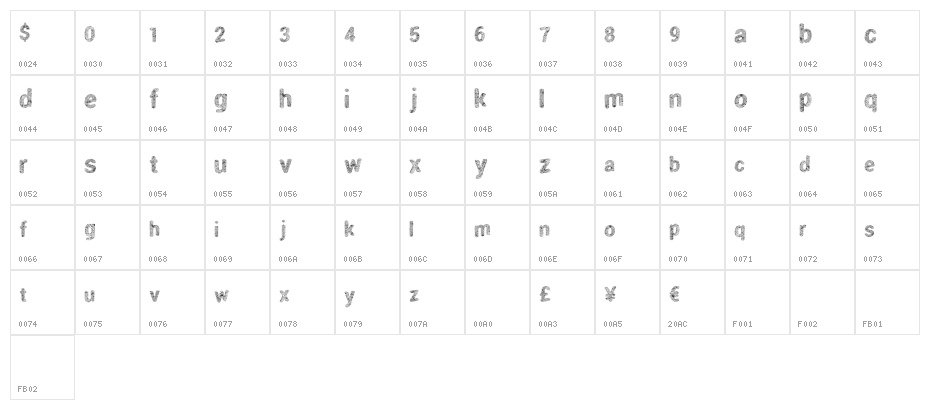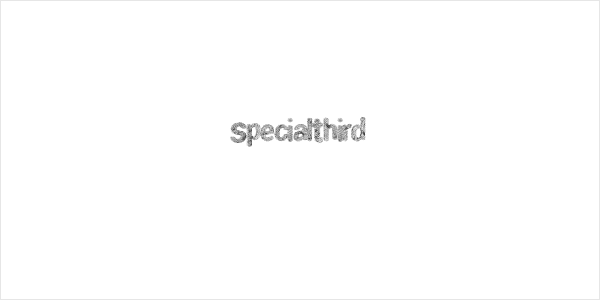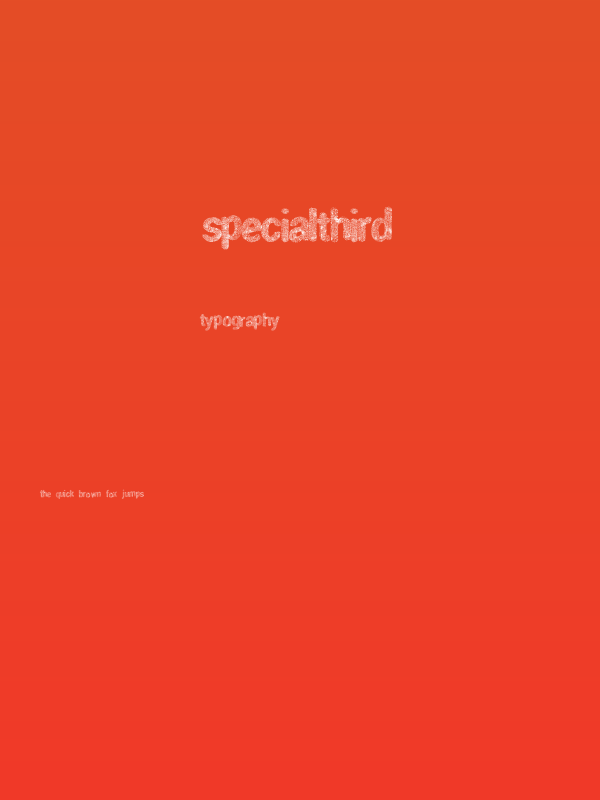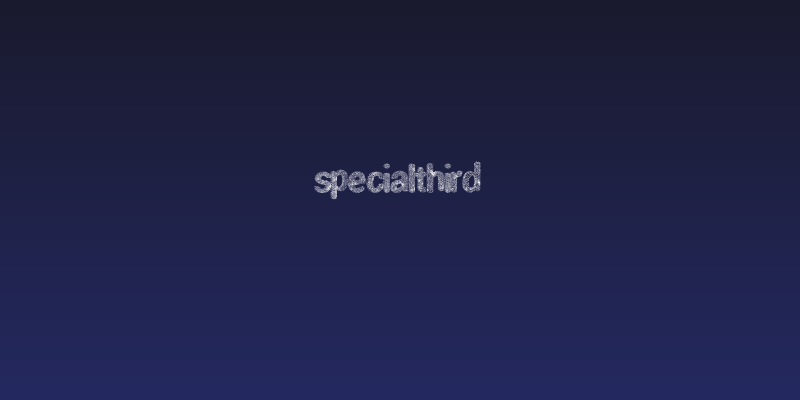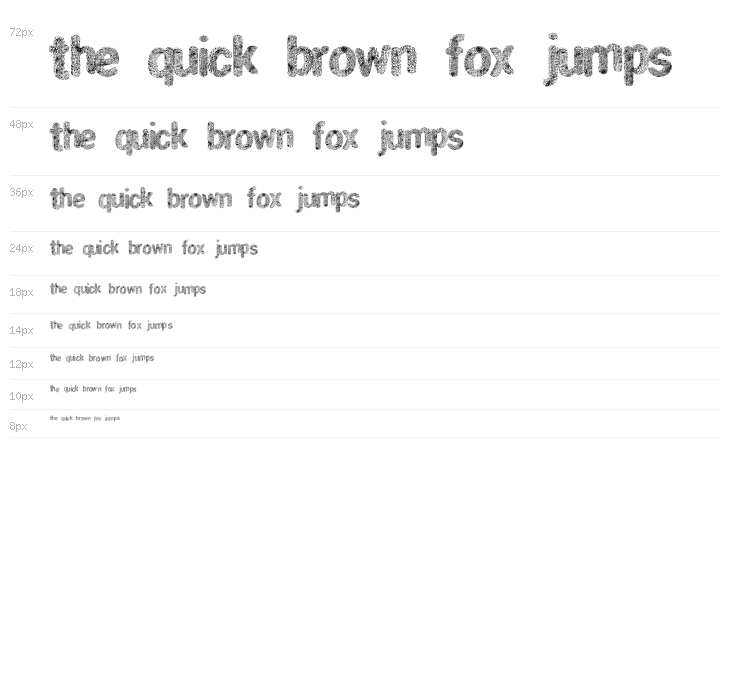
SpecialThird Font
SpecialThird Description
This font features a unique stippled texture, giving it a distinctive and playful appearance. The characters are bold and rounded, with a consistent dot pattern that adds a tactile quality. The uppercase and lowercase letters maintain a uniform style, while the numbers and special characters are equally well-integrated. This font's dotted texture creates a sense of movement and depth, making it stand out in any design. The overall look is modern and artistic, suitable for projects that require a touch of creativity and uniqueness.
| Proposed Projects | Ideal for creative projects such as posters, children's books, and playful branding materials. |